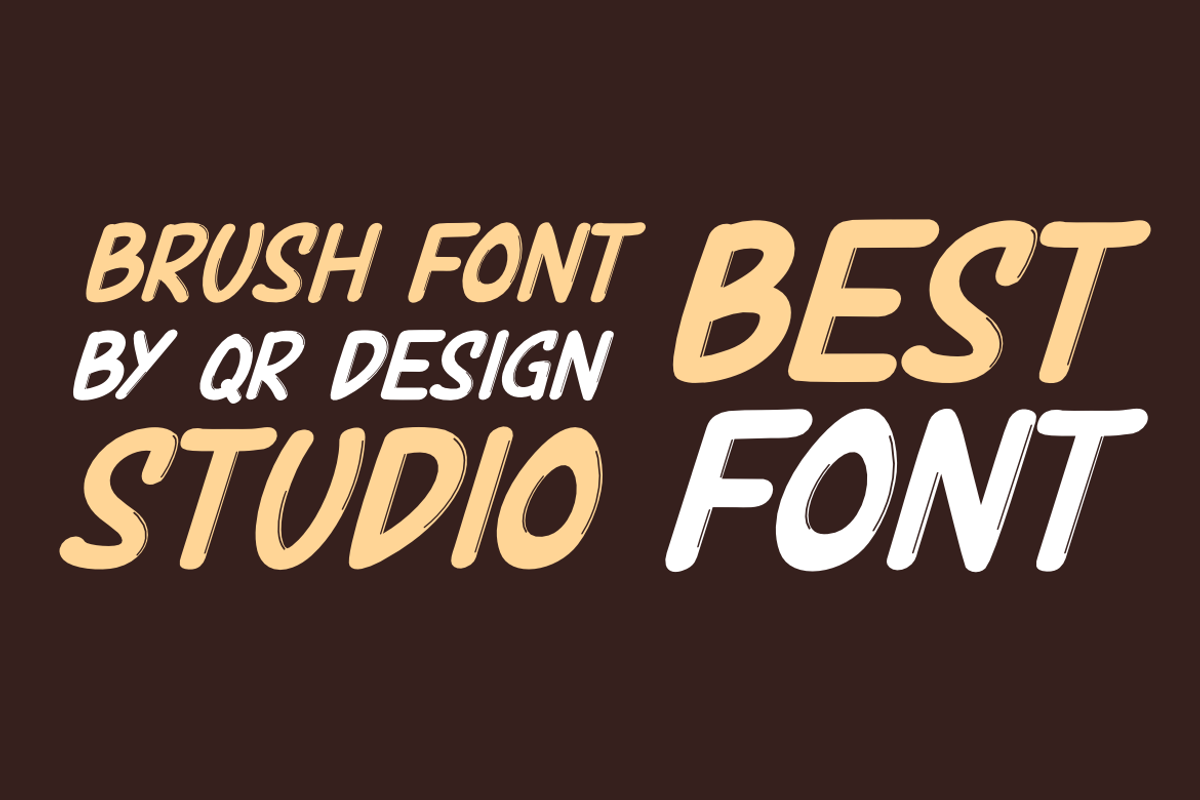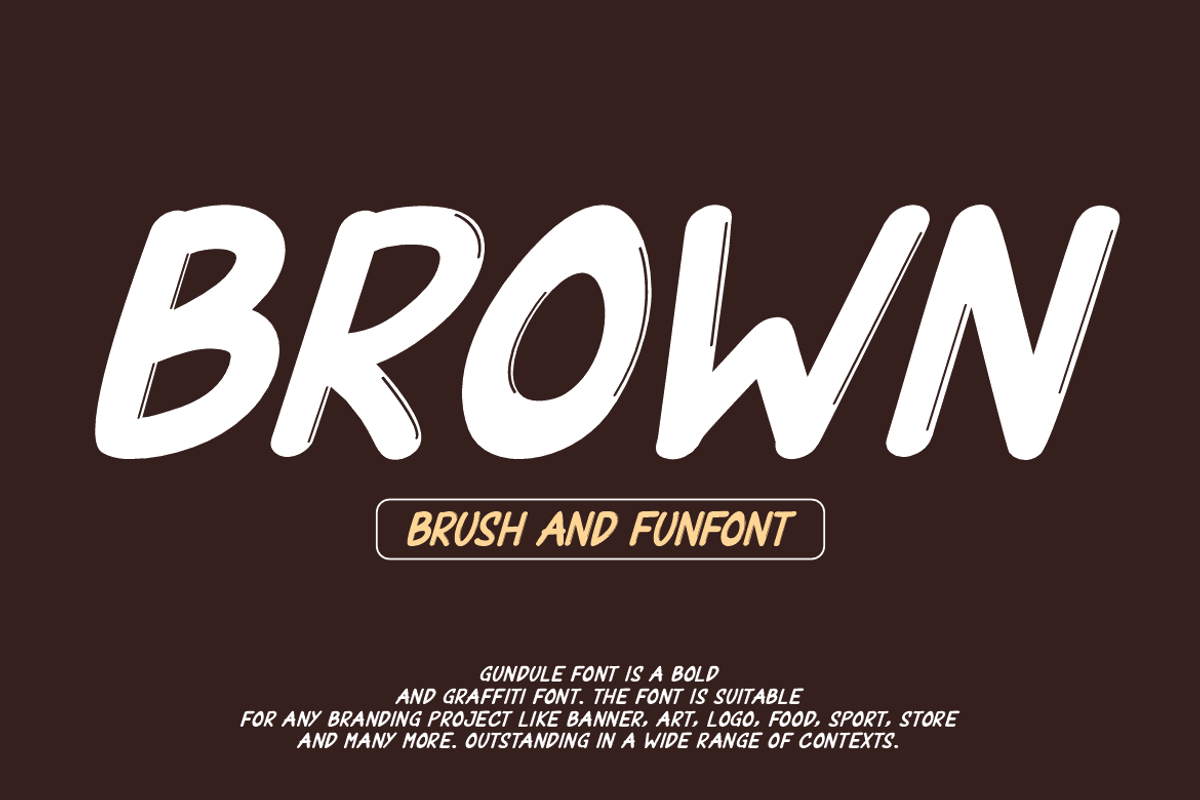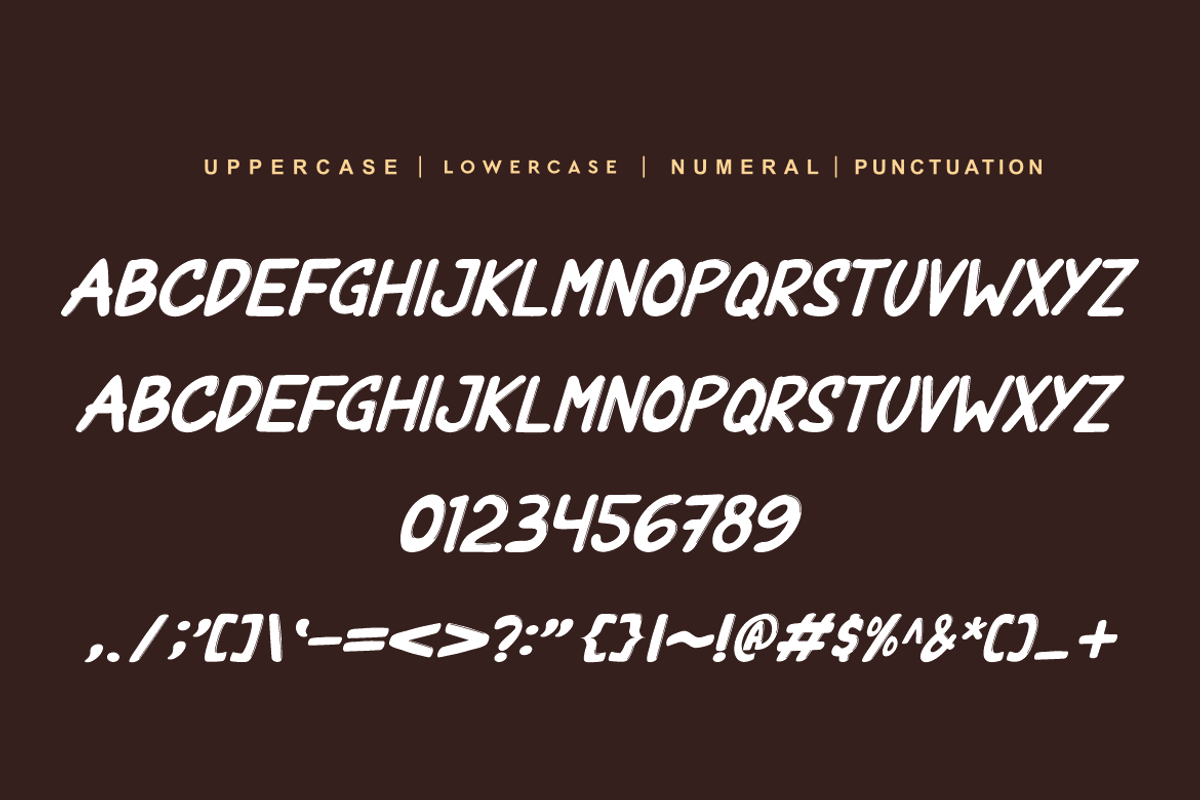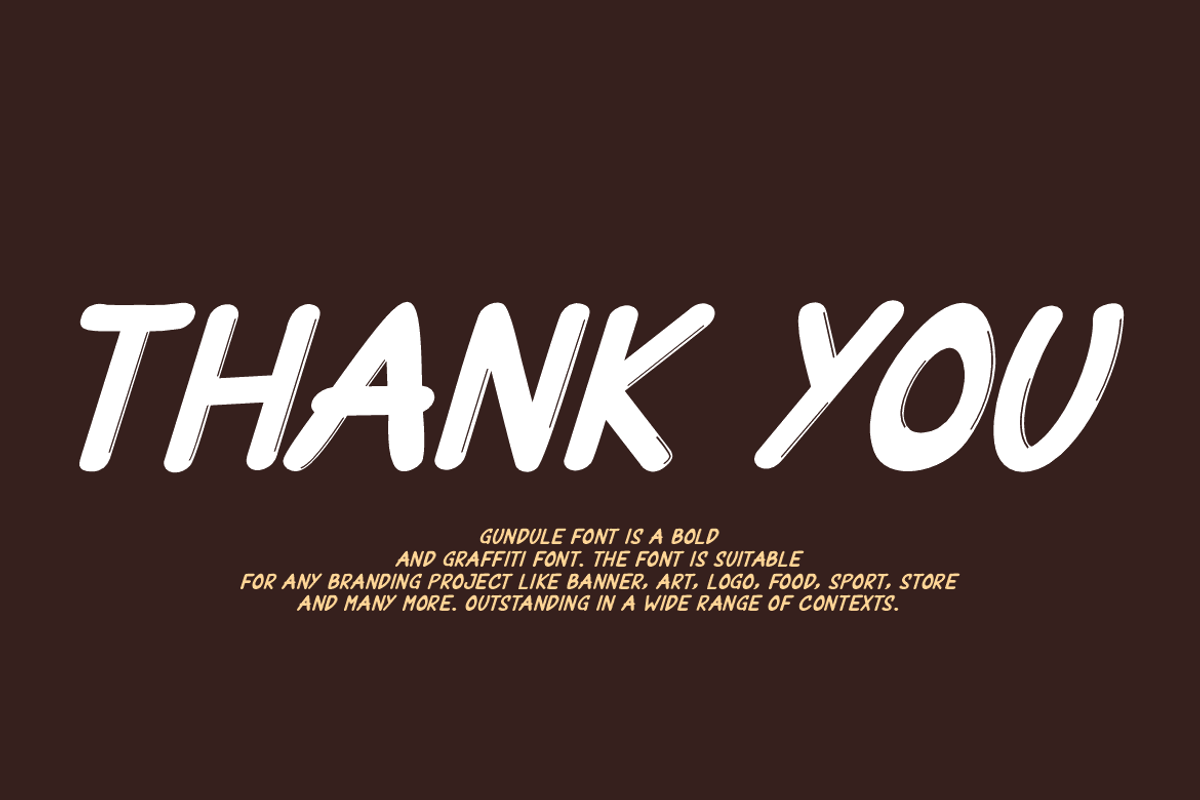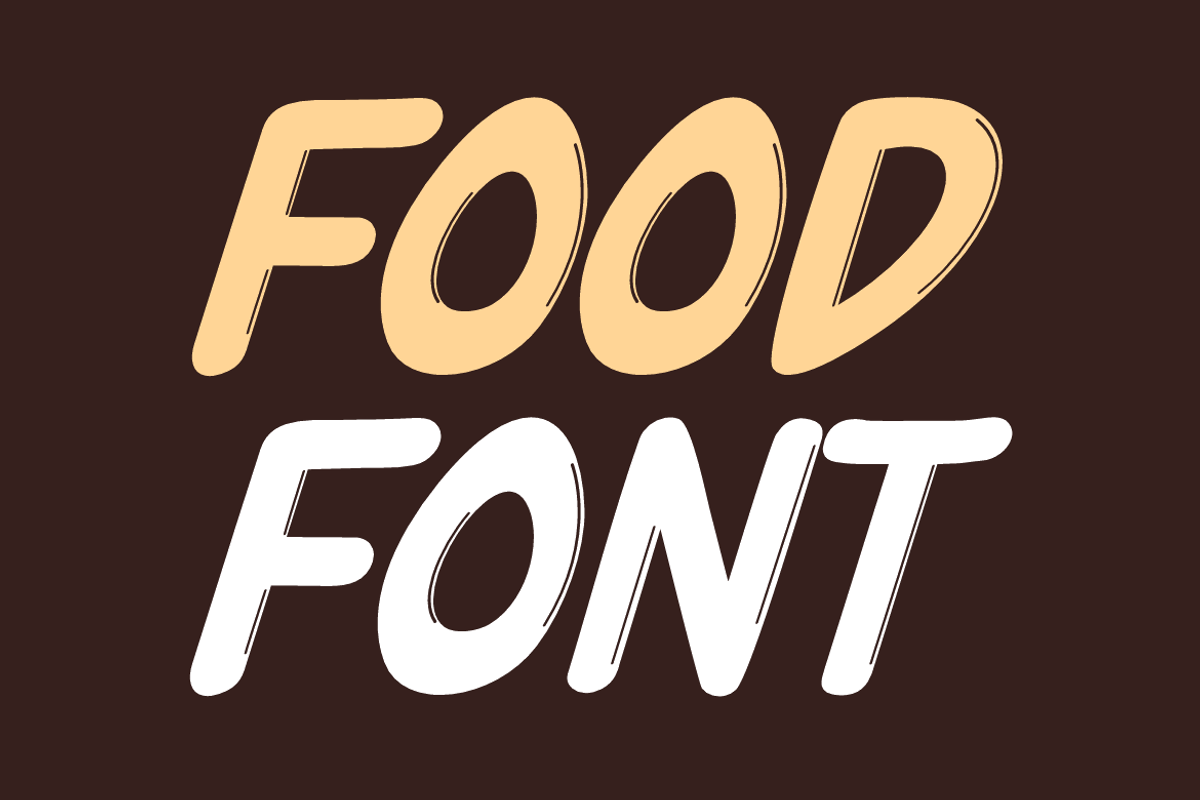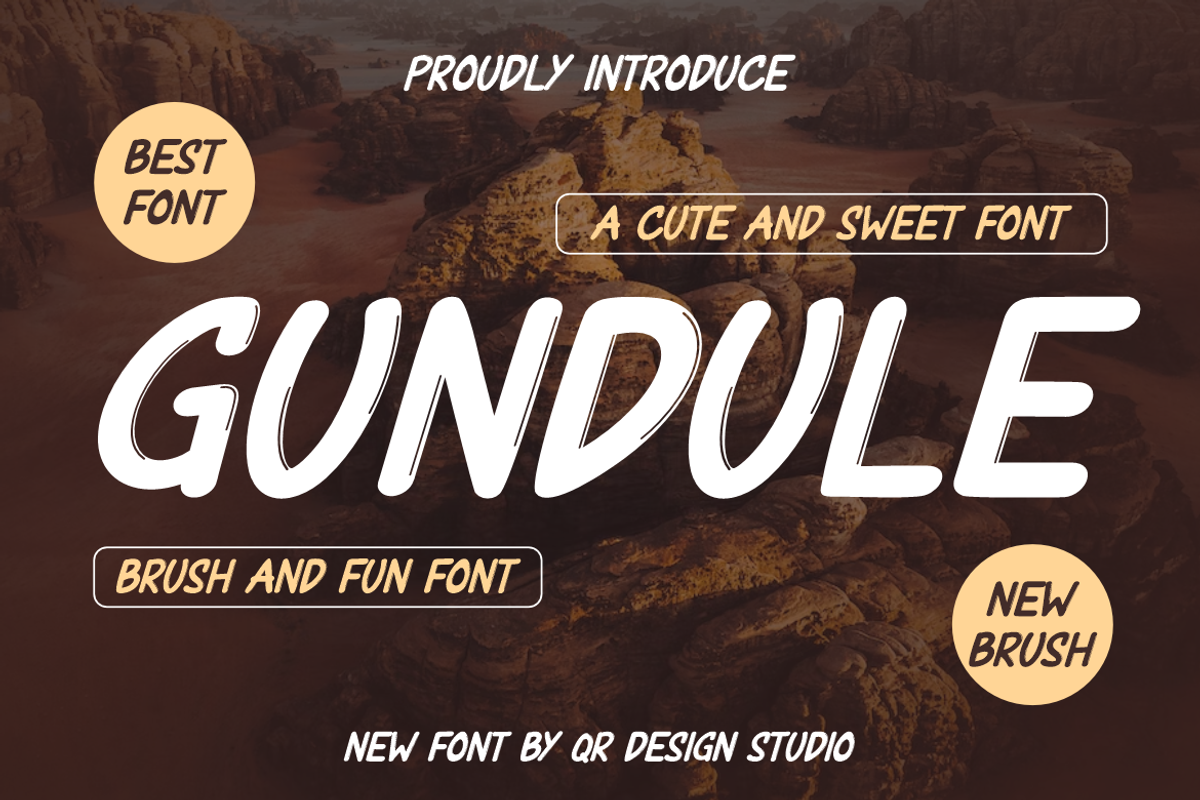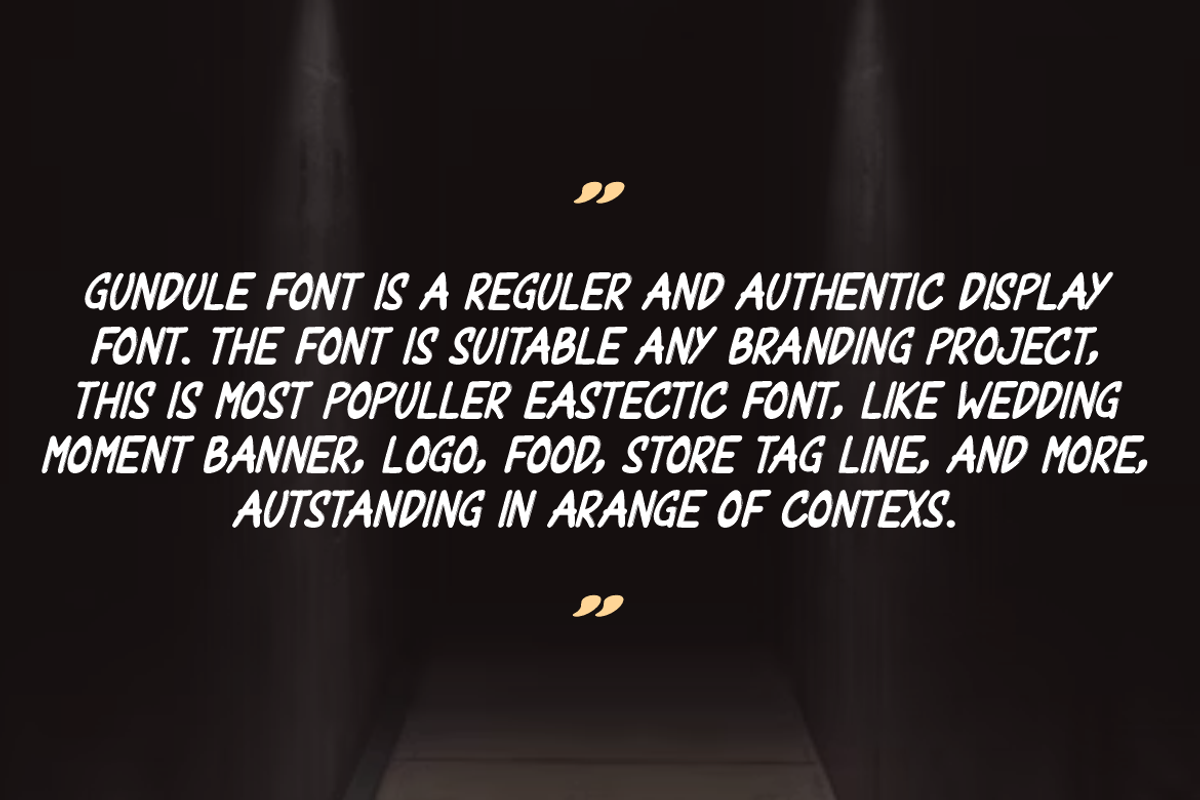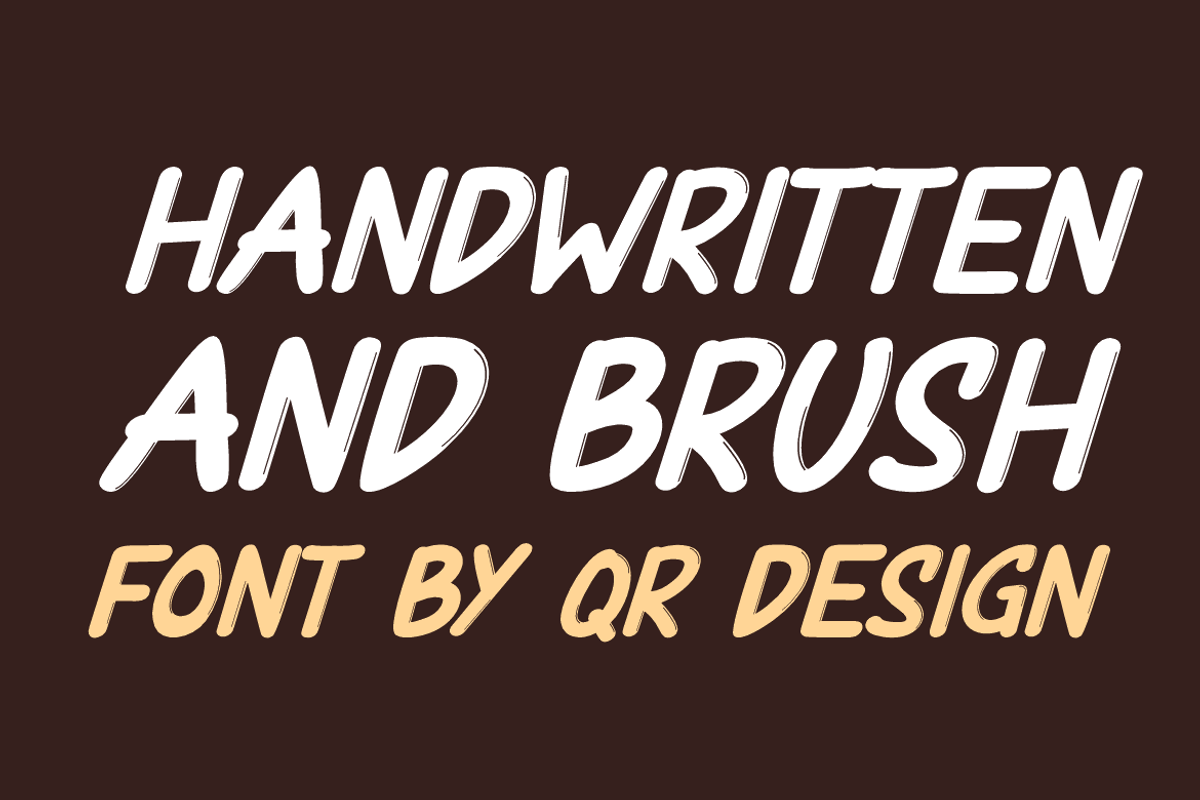
Gundule
Gundule Font is a bold and authentic display font. The font is suitable for any branding project like logo, food, and many more. Outstanding in a wide range of contexts.